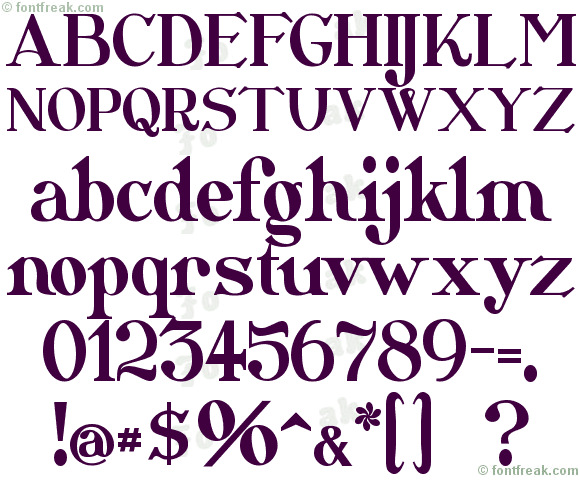
CatShop
About CatShop
CatShop is a delightful display font designed by Peter Wiegel, capturing a whimsical essence that appeals to a wide range of creative projects. This font falls into the decorative category, characterized by its playful yet sophisticated letterforms. The strokes exhibit a medium weight with a gentle contrast, giving the font a friendly and approachable feel. The spacing between letters is well-balanced, ensuring readability while maintaining an artistic flair. Decorative elements, such as subtle curves and rounded edges, contribute to the overall charm of the CatShop font, making it truly unique.
This font is particularly well-suited for various applications, such as wedding invitations, where its elegance can add a touch of whimsy to the special day. It also shines in children's book covers, capturing the imagination of young readers with its fun shapes and friendly demeanor. Restaurant menus can benefit from the CatShop font, offering a warm and inviting atmosphere that complements a cozy dining experience. Additionally, it works brilliantly for branding small businesses, especially those in the pet industry, or any creative venture that seeks to convey a sense of joy and playfulness.
In summary, the CatShop font stands out not only for its delightful visual style but also for its broad applicability across various design contexts. With its charming aesthetics and user-friendly licensing, CatShop font free download is an excellent addition to any designer's toolkit, allowing for creativity to flourish in every project.